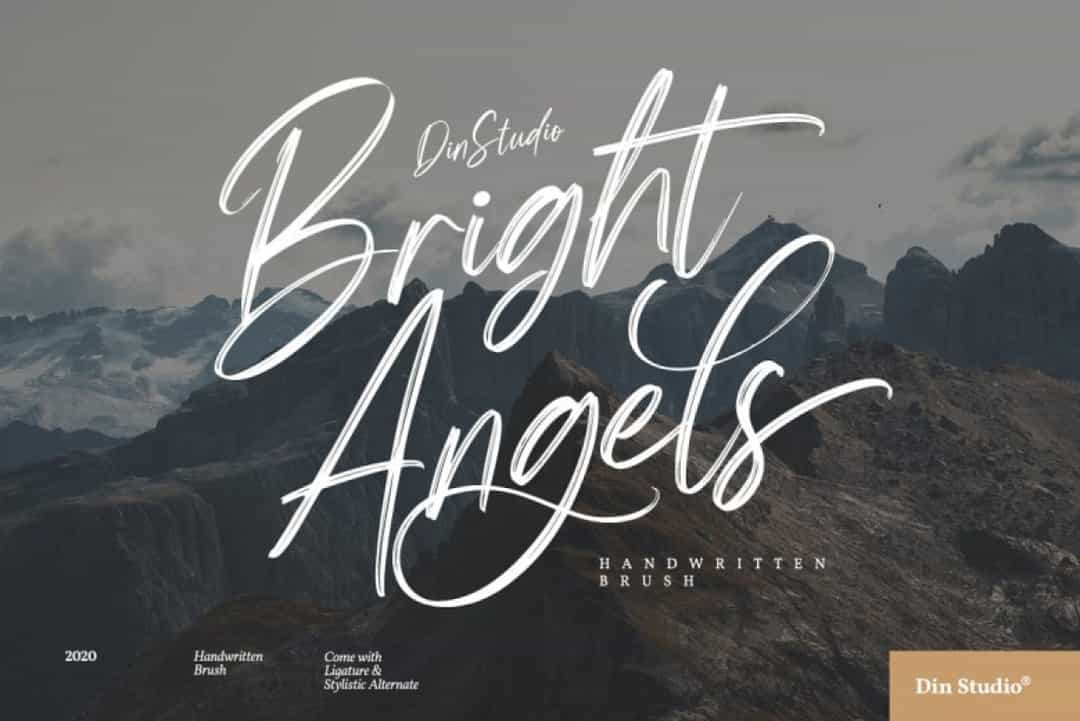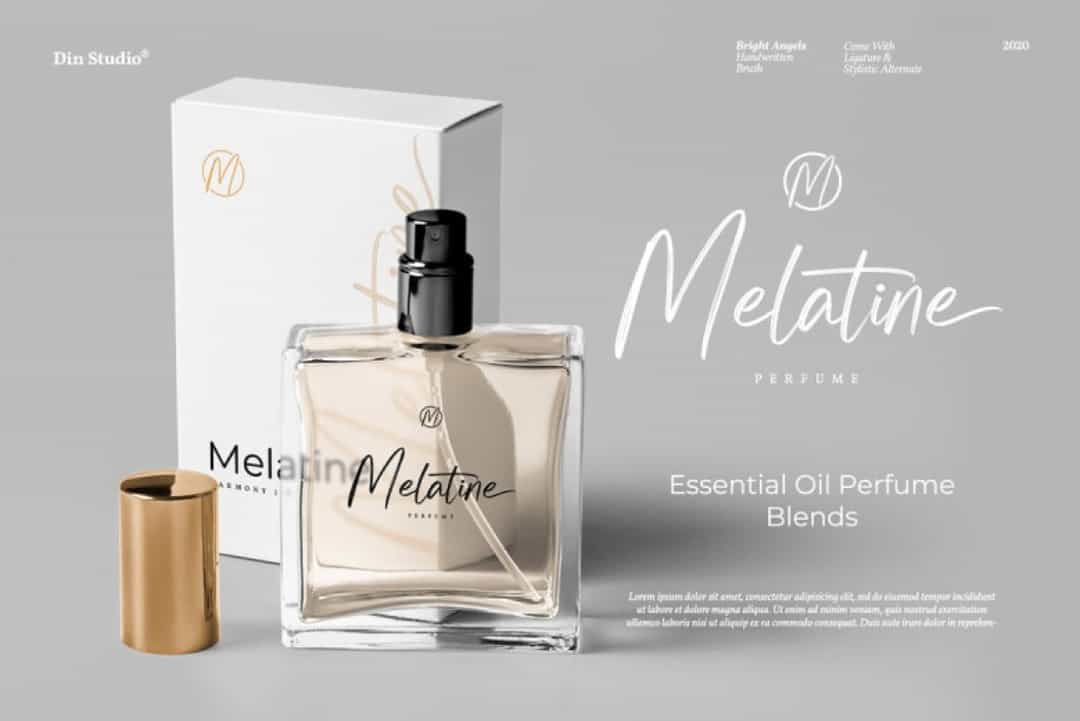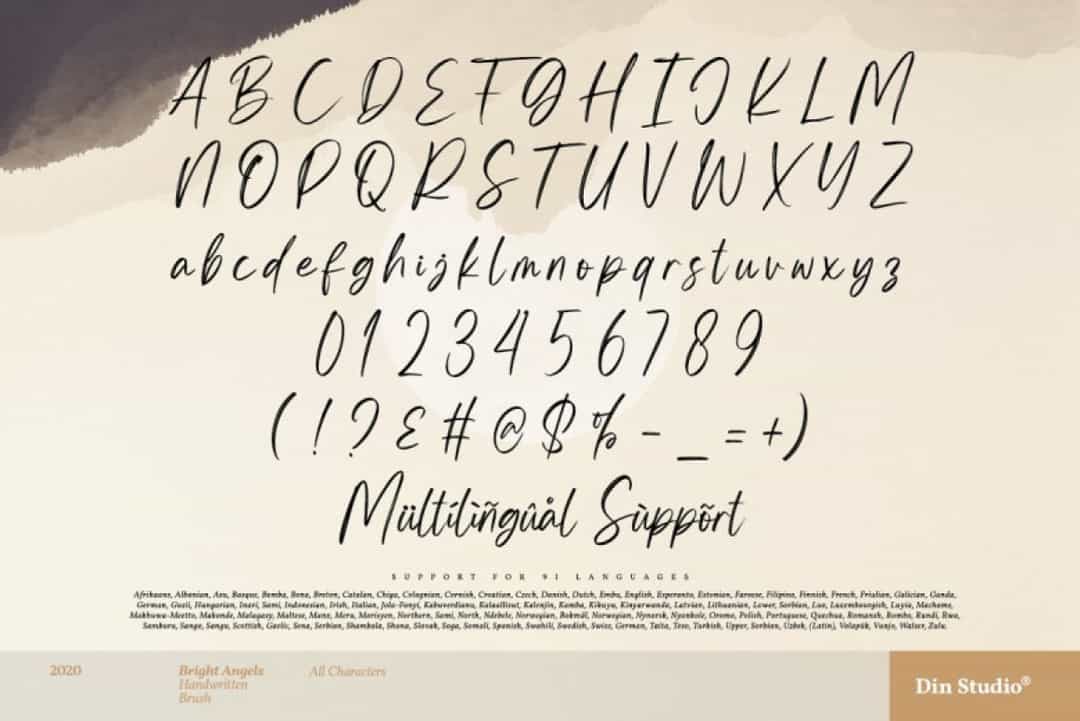
Bright Angels Font is an exquisite handwritten script font. Perfect for greeting cards and headlines alike, Bright Angels Font brings romance into any design project it graces.